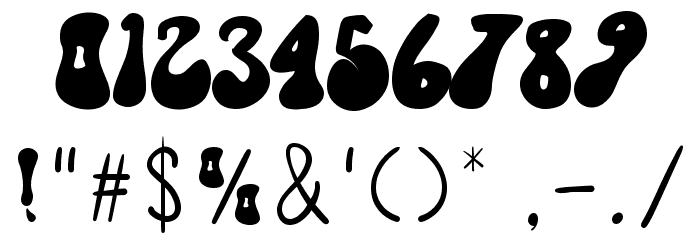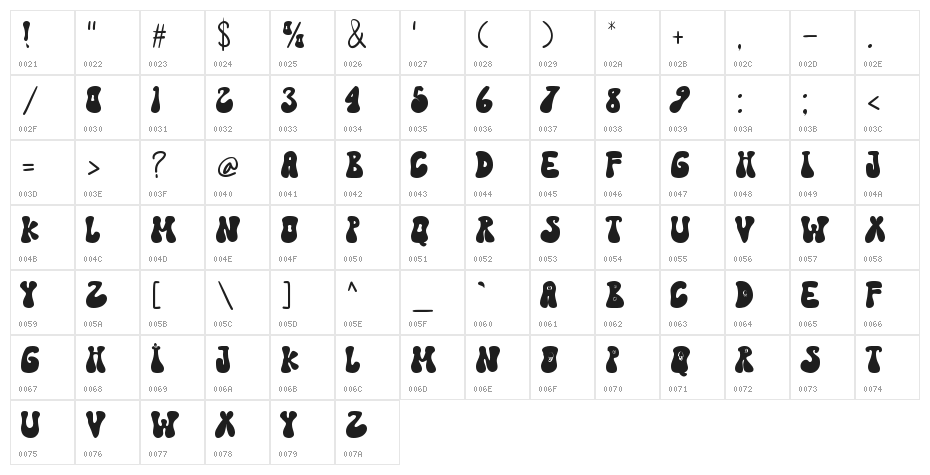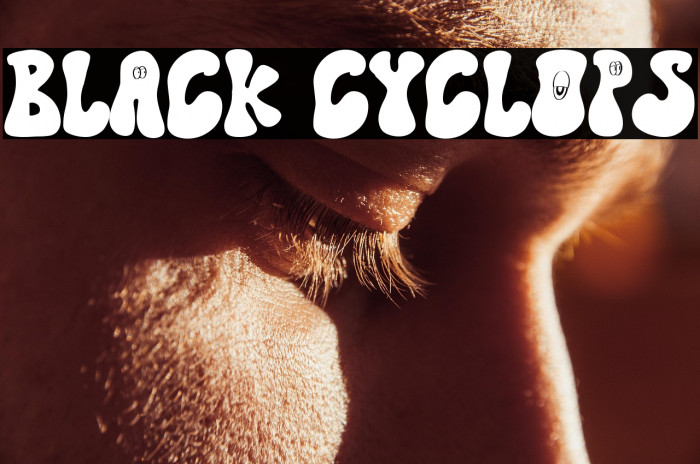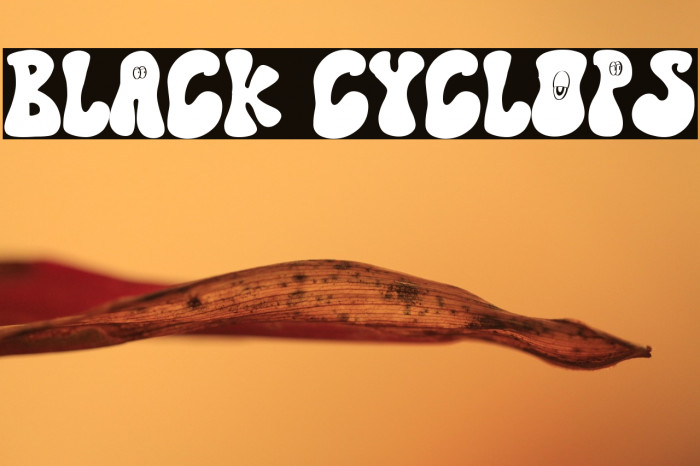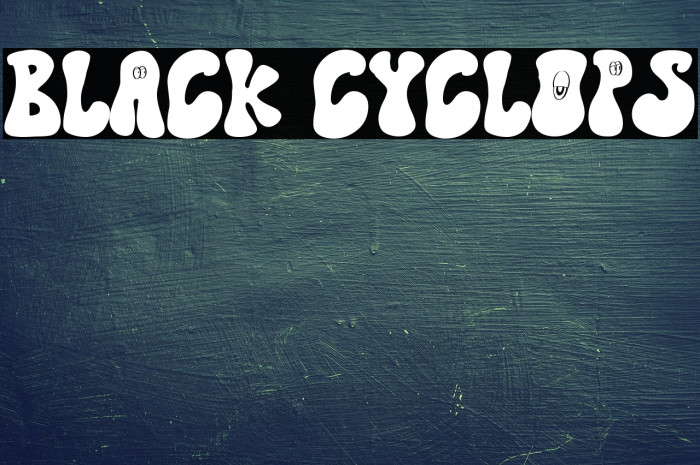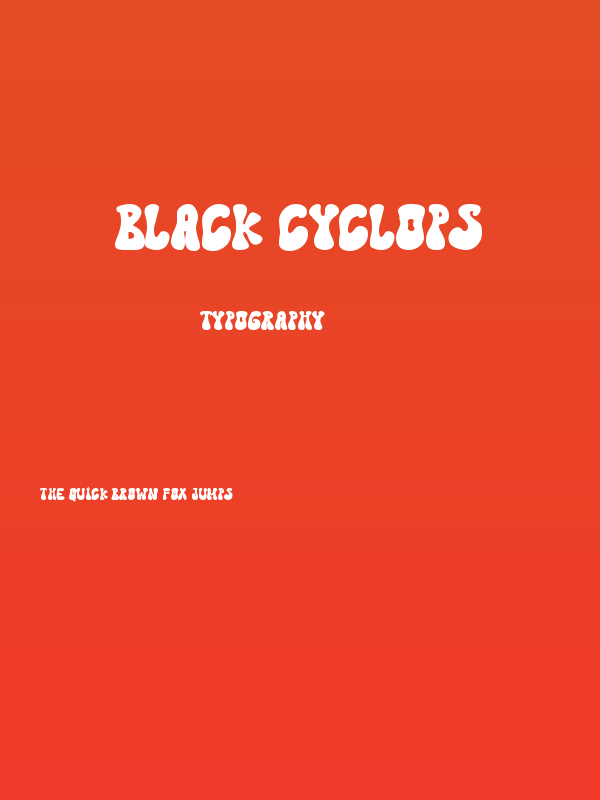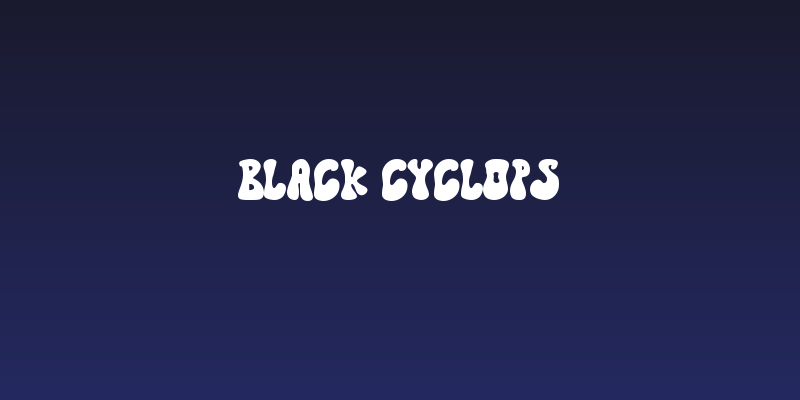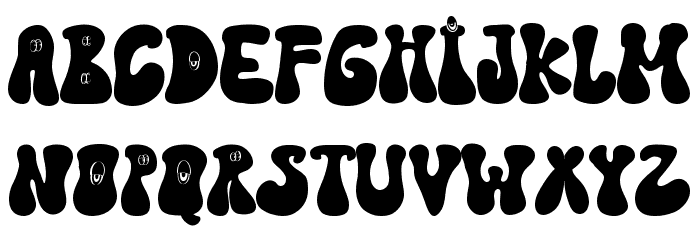
Black Cyclops Font
Black Cyclops Description
This playful and bold font features a unique, bulbous design with a whimsical touch. Each character is crafted with a thick, rounded form, giving it a distinctive, eye-catching appearance. The letters have a cartoonish quality, with exaggerated curves and a sense of movement that adds a lively and dynamic feel. The numbers and special characters follow the same playful style, ensuring consistency across all elements. This font is perfect for projects that require a fun and engaging visual impact.
| Proposed Projects | Ideal for children's books, playful branding, comic strips, and creative posters. |